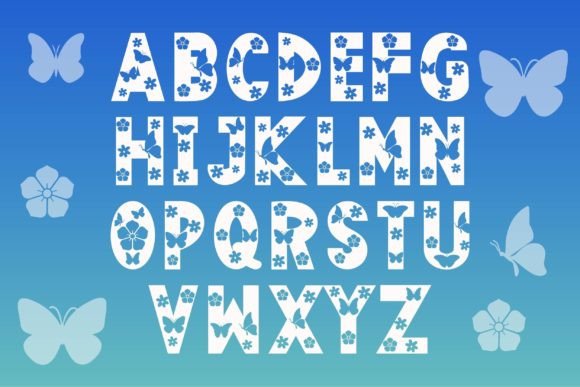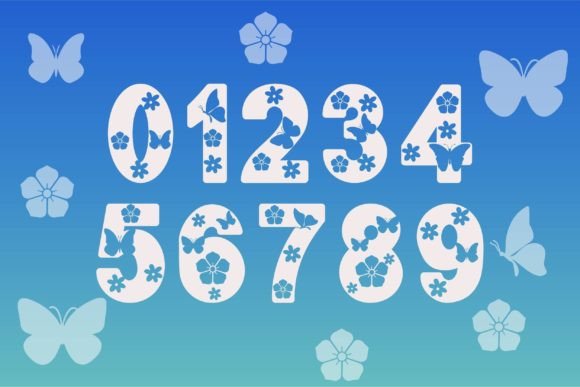
The Perfect Design Companion: Butterfly Font
Have you ever stared at a blank page, waiting for the perfect font to bring your creative vision to life? It’s a moment we’ve all experienced, the thrill of searching for that one font that makes everything click. For designers, this is a familiar feeling – and it’s where the Butterfly Font comes in. This unique display font is designed to make a statement, perfect for logotypes, headlines, and branding projects that need a touch of elegance and whimsy.
Whether you’re working on a corporate identity, a music project, or a comic book, the Butterfly Font is a valuable addition to your design toolkit. Its versatility and originality make it a go-to choice for designers looking to add a personal touch to their work. With the Butterfly Font, you can take your designs to new heights and make a lasting impression on your audience.
Key Features of Butterfly Font
- Font Family: Butterfly Font is a sans-serif font family that includes multiple weights and styles.
- Unique Characteristics: The font features a unique blend of modern and elegant design elements, with subtle rounded edges and a friendly feel.
Butterfly Font Review
I’ve had the chance to work with the Butterfly Font, and I must say it’s a unique and interesting addition to any design project. ✨ Here are some of the things that work well:
- Expressive and whimsical feel: This font is perfect for projects that need a touch of playfulness and elegance.
- Customizable: The font offers a range of styles and variations that can be easily customized to suit your design needs.
- Beautiful letterforms: Each letter is carefully crafted to create a sense of movement and fluidity.
However, as with any font, there are some limitations to consider: ⚠️
- Readability issues: The font’s ornate details can make it difficult to read, especially at smaller sizes.
- Limited legibility: Some letters may be hard to distinguish from one another, which can impact overall readability.
Overall, I think the Butterfly Font is a great choice for projects that require a touch of whimsy and elegance. While it may have some limitations, its unique style and customization options make it a valuable addition to any designer’s toolkit.
Tips for Getting the Most Out of the Butterfly Font
For the most visually appealing designs, pair the Butterfly Font with bold, bright colors and delicate graphics. Use the font for headings and titles to add a touch of whimsy and elegance to your design.
The Butterfly Font is perfect for:
- Children’s books and educational materials
- Stationery and gift cards